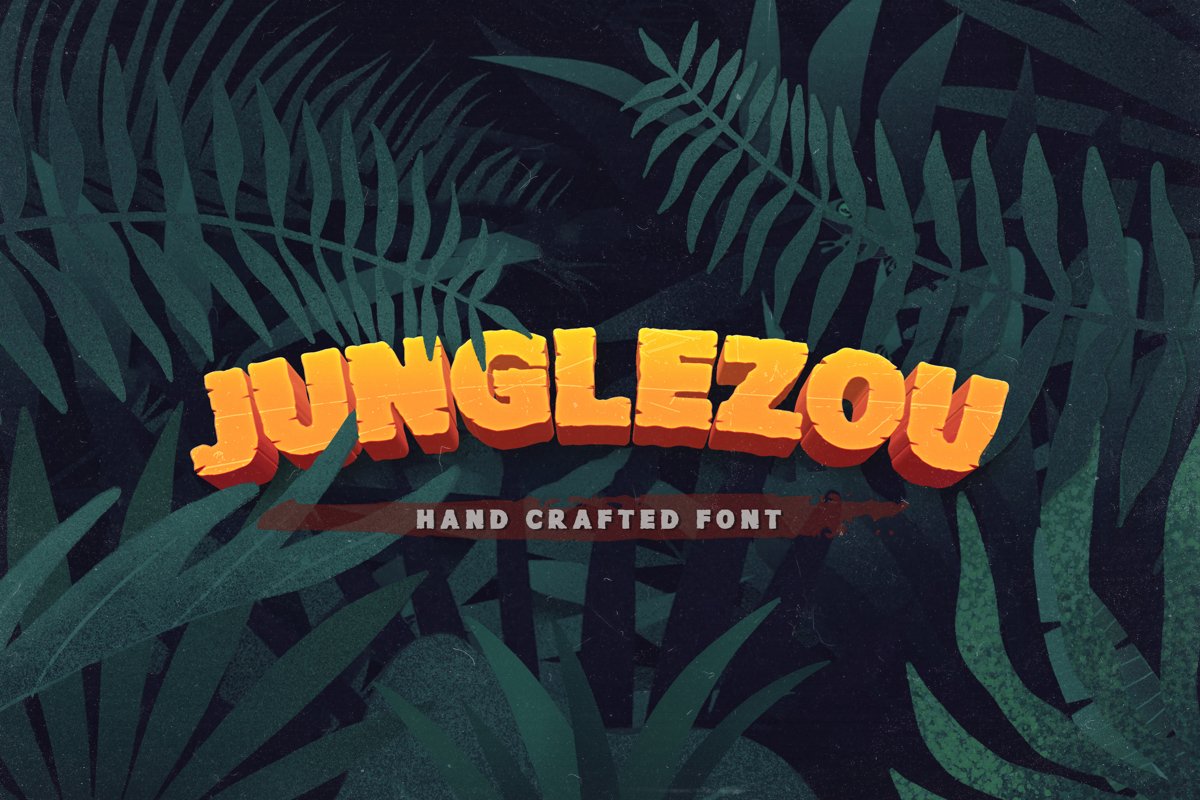
Junglezou Typeface
junglezou
Introducing Junglezou Typeface
Welcome to the forest will sound better with Junglezou font type. Be inspired by wild and visual nature to get the fun forest concept that's right and right for your design. It is suitable for story books, children's food, food, snacks, fun events, children's logos, casual branding, etc.
• Uppercase only